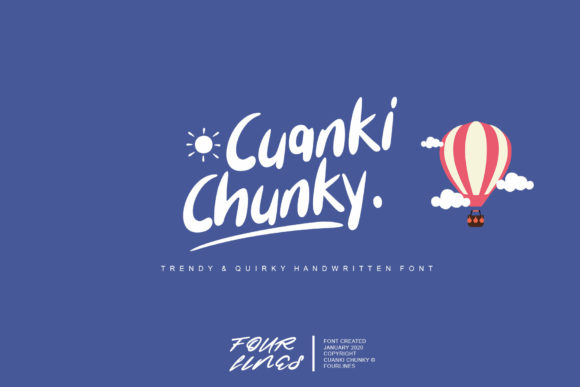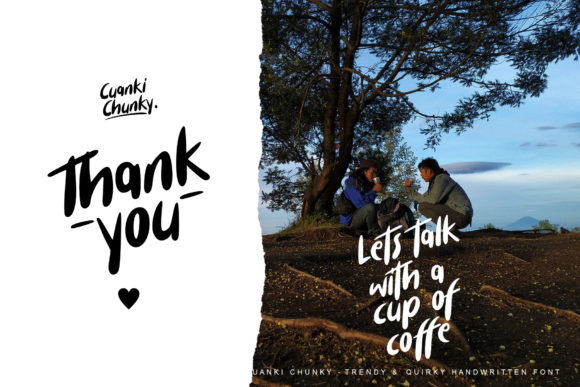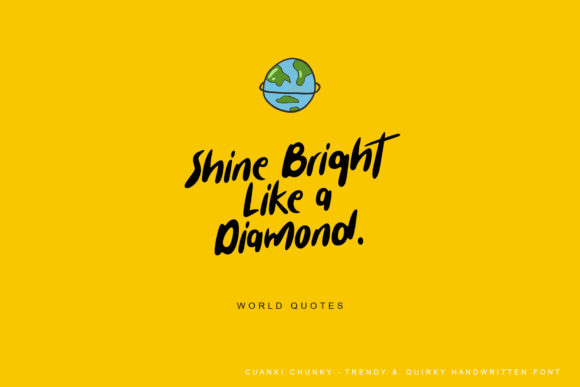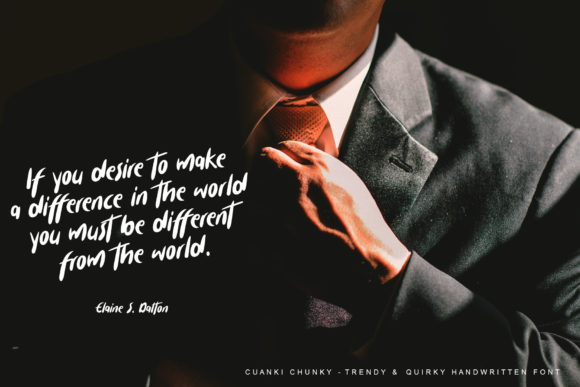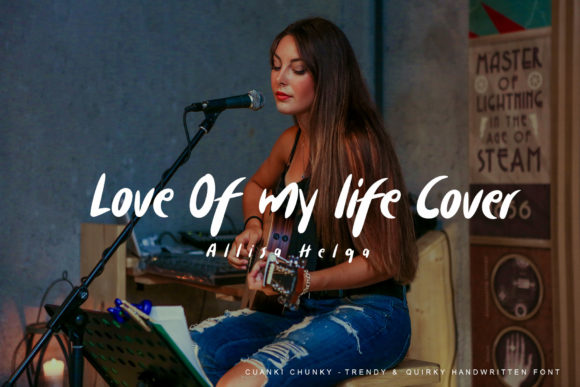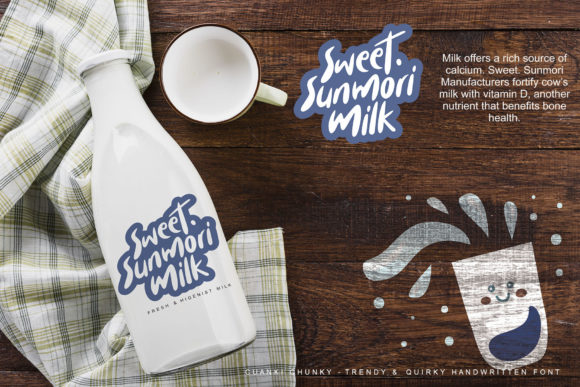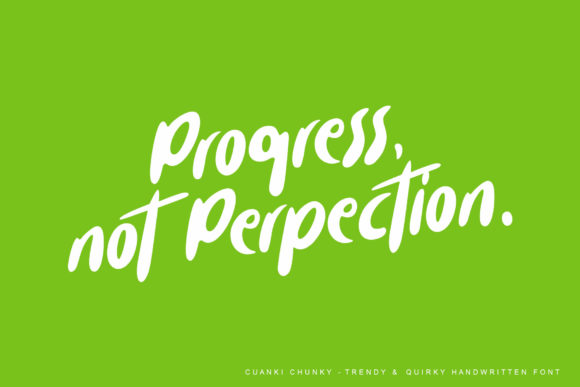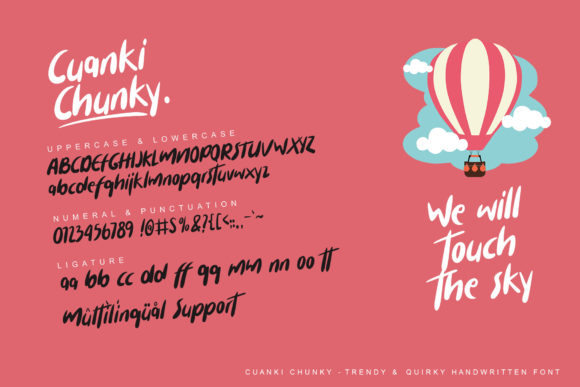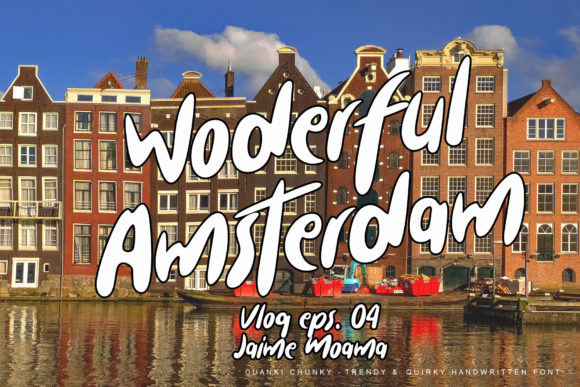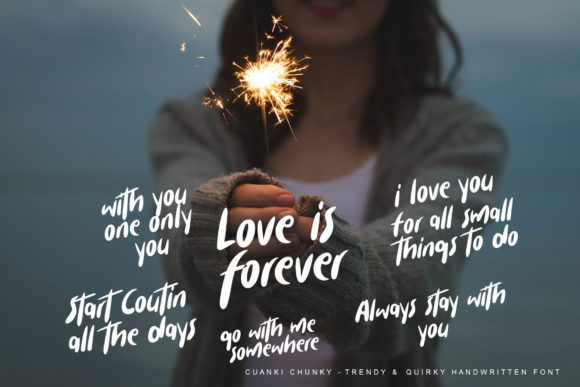
Cuanki Chunky Font
About Cuanki Chunky Font
Cuanki Chunky is a trendy handwritten font. Its natural and unique style makes it incredibly fitting to a large pool of designs. Get inspired by its authentic feel and use it to create gorgeous wedding invitations, beautiful stationary art, eye-catching social media posts, and cute greeting cards.